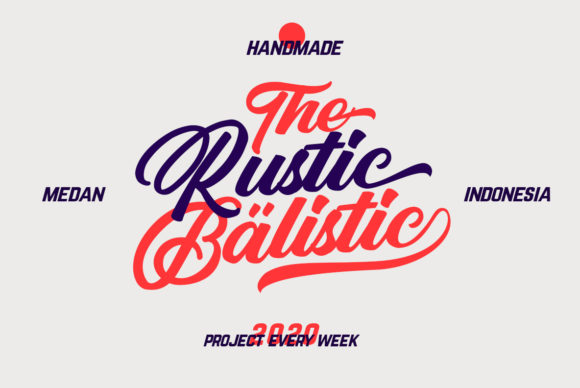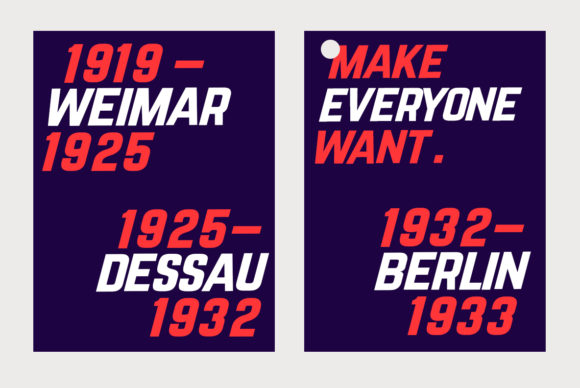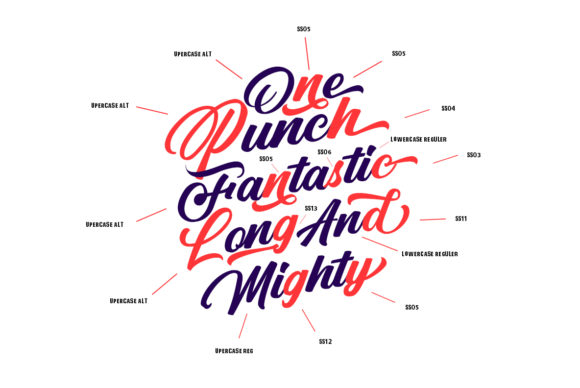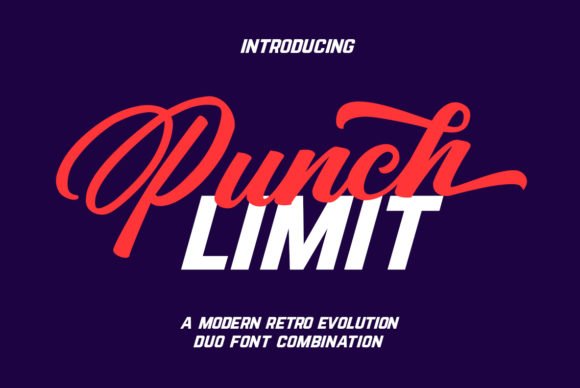
Introduction to Punch Limit Duo Font
Punch Limit is a dynamic font duo bringing together a gorgeous font and an elegant italic sans serif font which complement each other perfectly.
It will look especially great on any gaming or sport-themed projects .
Key Features of Punch Limit Duo Font
Why Choose Punch Limit Duo Font?